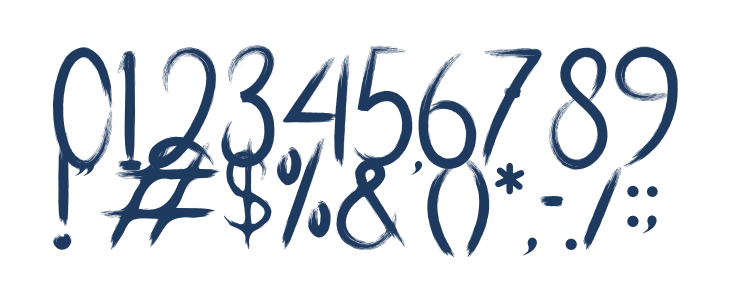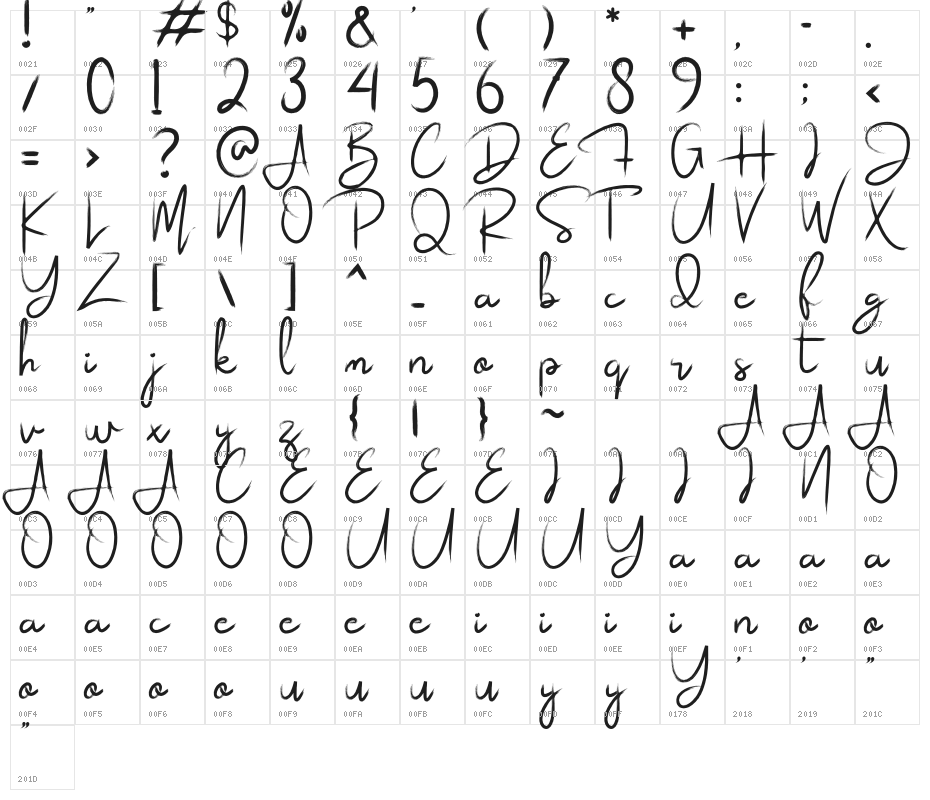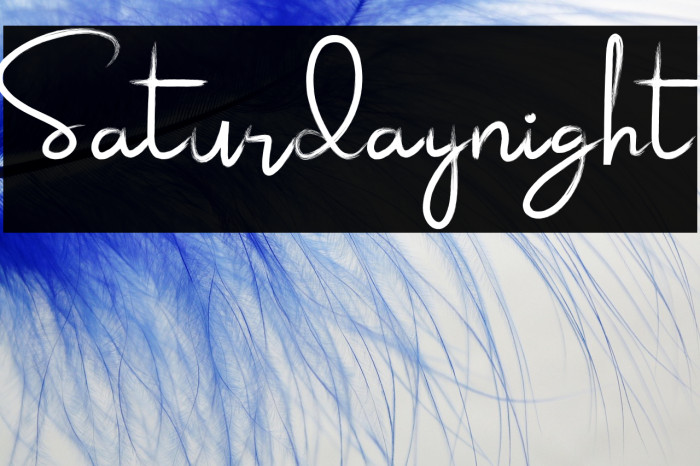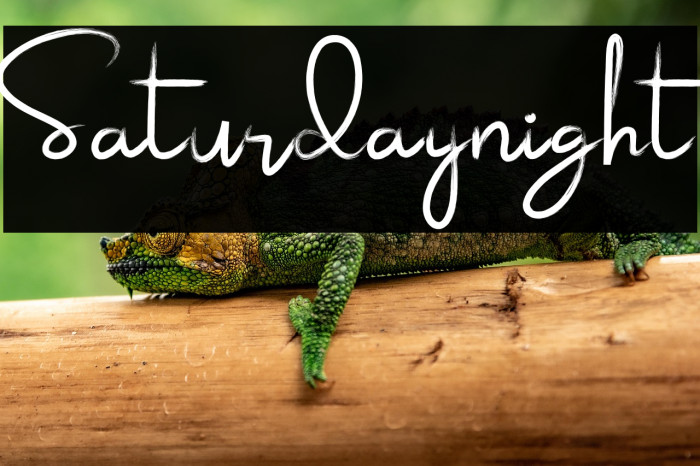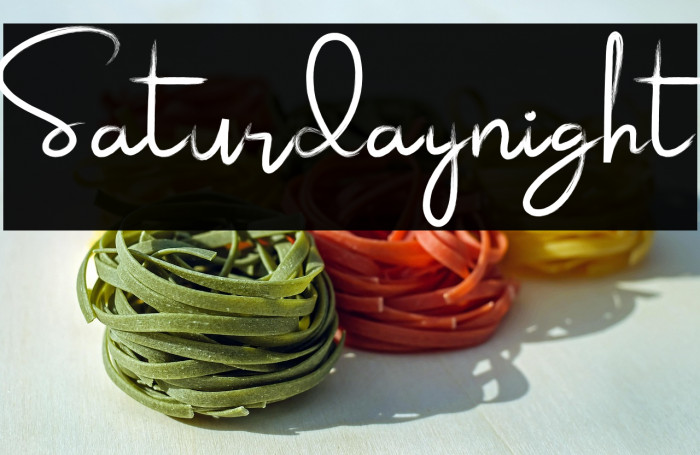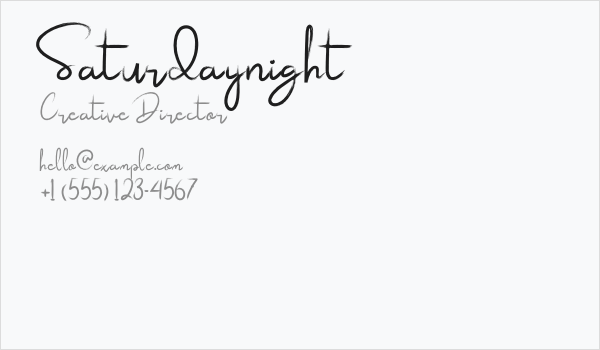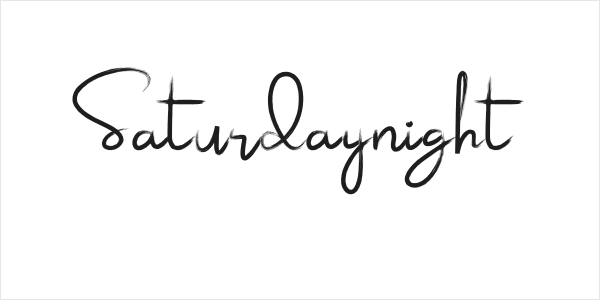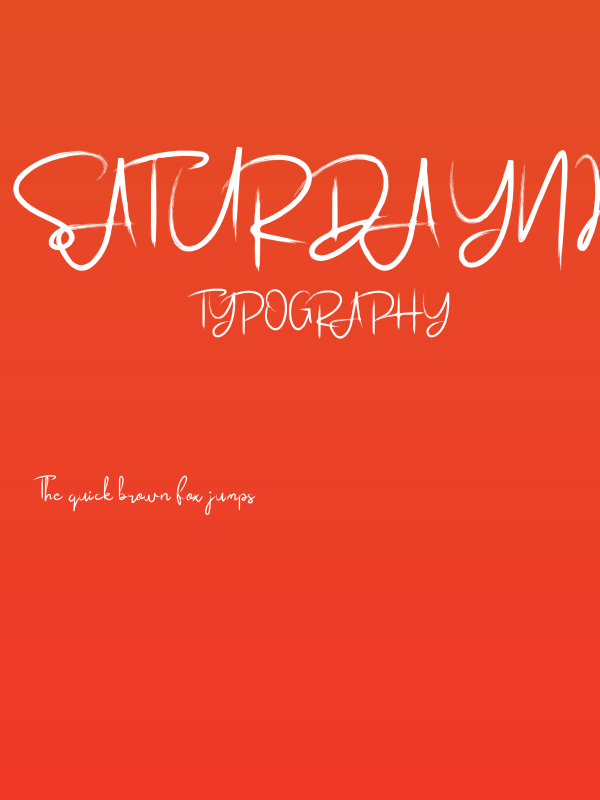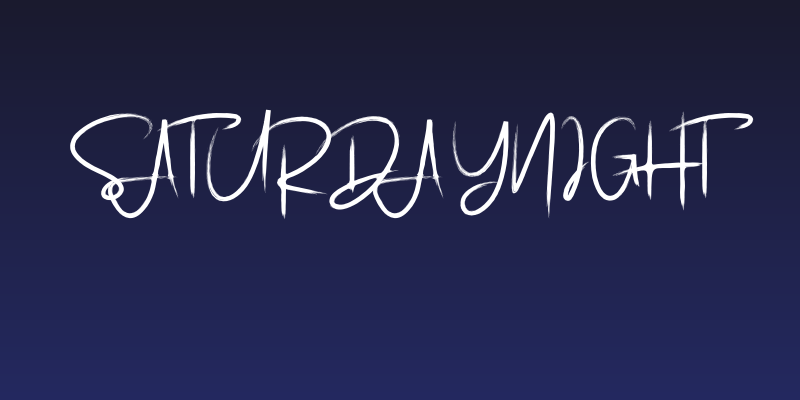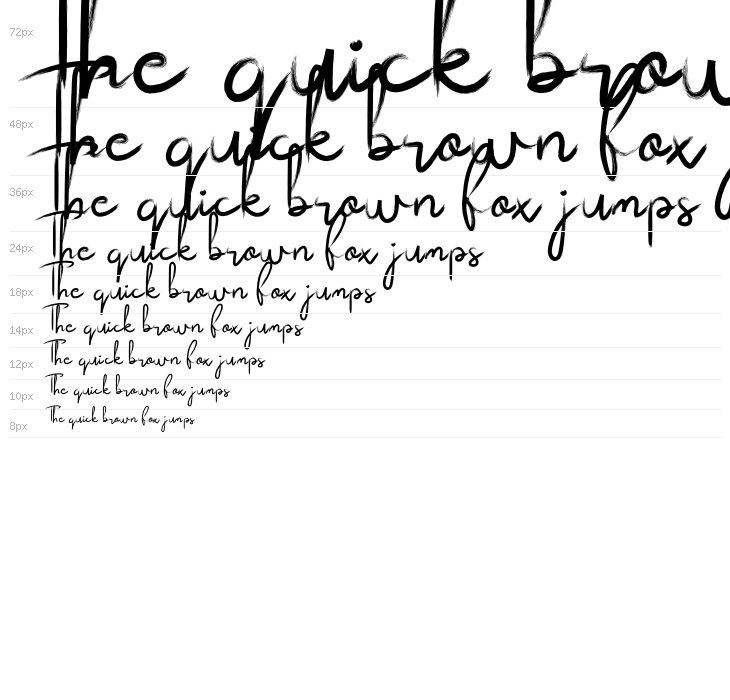
Saturdaynight Font
Saturdaynight Description
This font features a dynamic and expressive handwritten style, characterized by its fluid and sweeping strokes. The uppercase letters are bold and slightly elongated, giving a sense of movement and energy. The lowercase letters maintain a consistent flow, with some letters featuring unique loops and curves that add to the font's charm. The numbers and special characters are equally expressive, maintaining the overall aesthetic of the font. The brush-like texture of the strokes adds a handcrafted feel, making it suitable for projects that require a personal touch.
| Use Case | Logos, Headlines, Artistic projects |
| Proposed Projects | Ideal for greeting cards, invitations, branding, and artistic projects that require a personal and creative touch. |